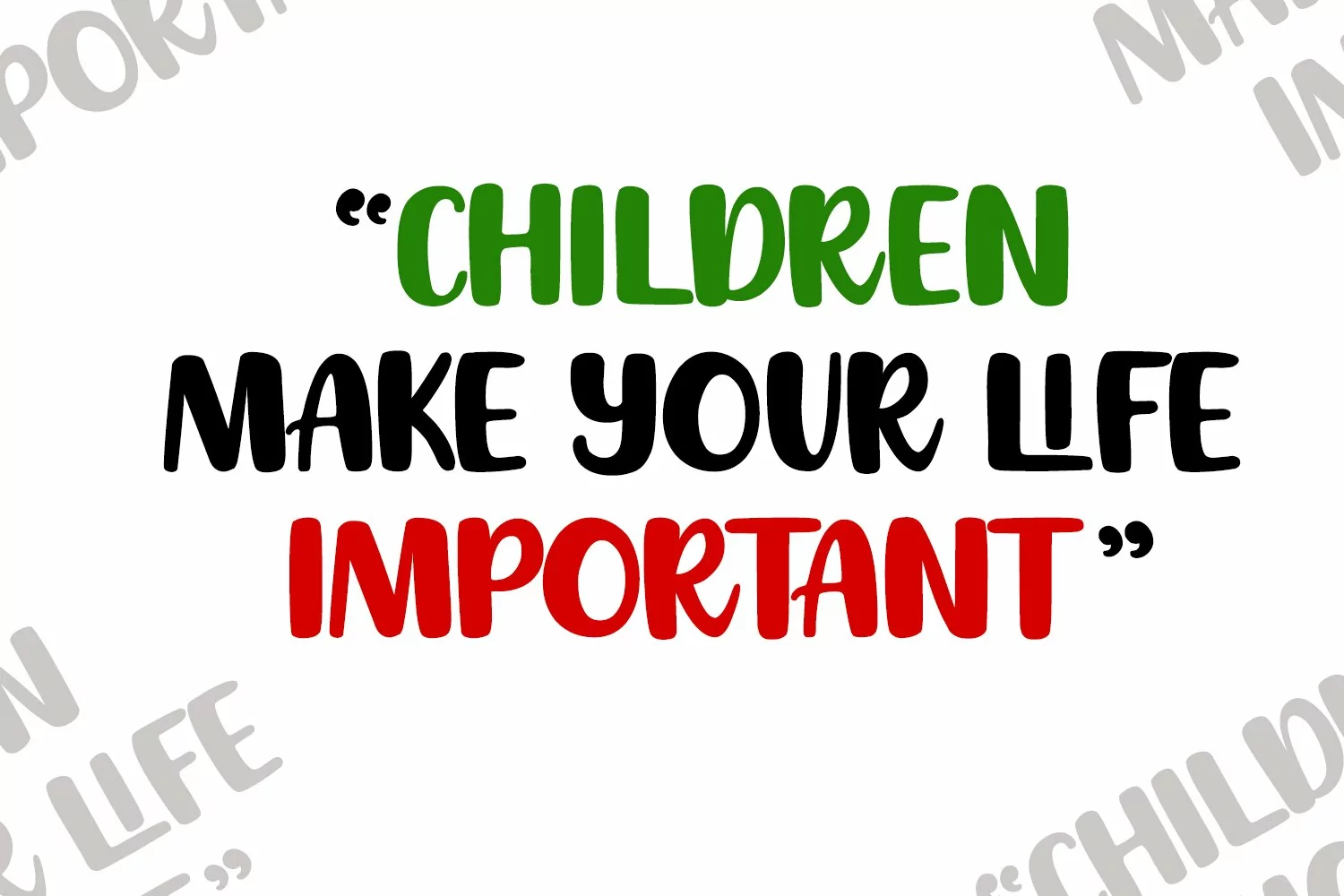
JELLY FRUIT Playfull Font is playfull, display font.
JELLY FRUIT Playfull Font would perfect for kids poster, flyer , cover children book, cartoon, comic and etc.